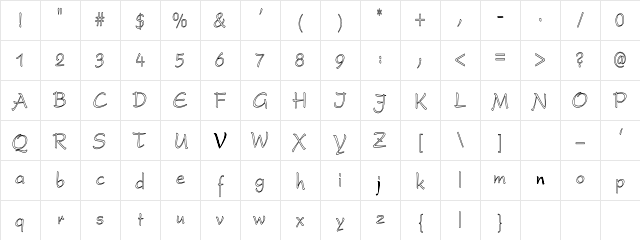
PresentScript-THC Regular
Design Context for PresentScript-THC
PresentScript-THC flows with the natural rhythm of handwritten lettering, making it ideal for designs that call for warmth and personal expression.
Font Pairing: Combine PresentScript-THC with a simple geometric sans for maximum contrast - the tension between flowing curves and clean structure is a classic typographic pairing.
Pro Tip: Use PresentScript-THC for short runs of text - names, titles, or taglines. Extended body copy in script faces tires the eye quickly.